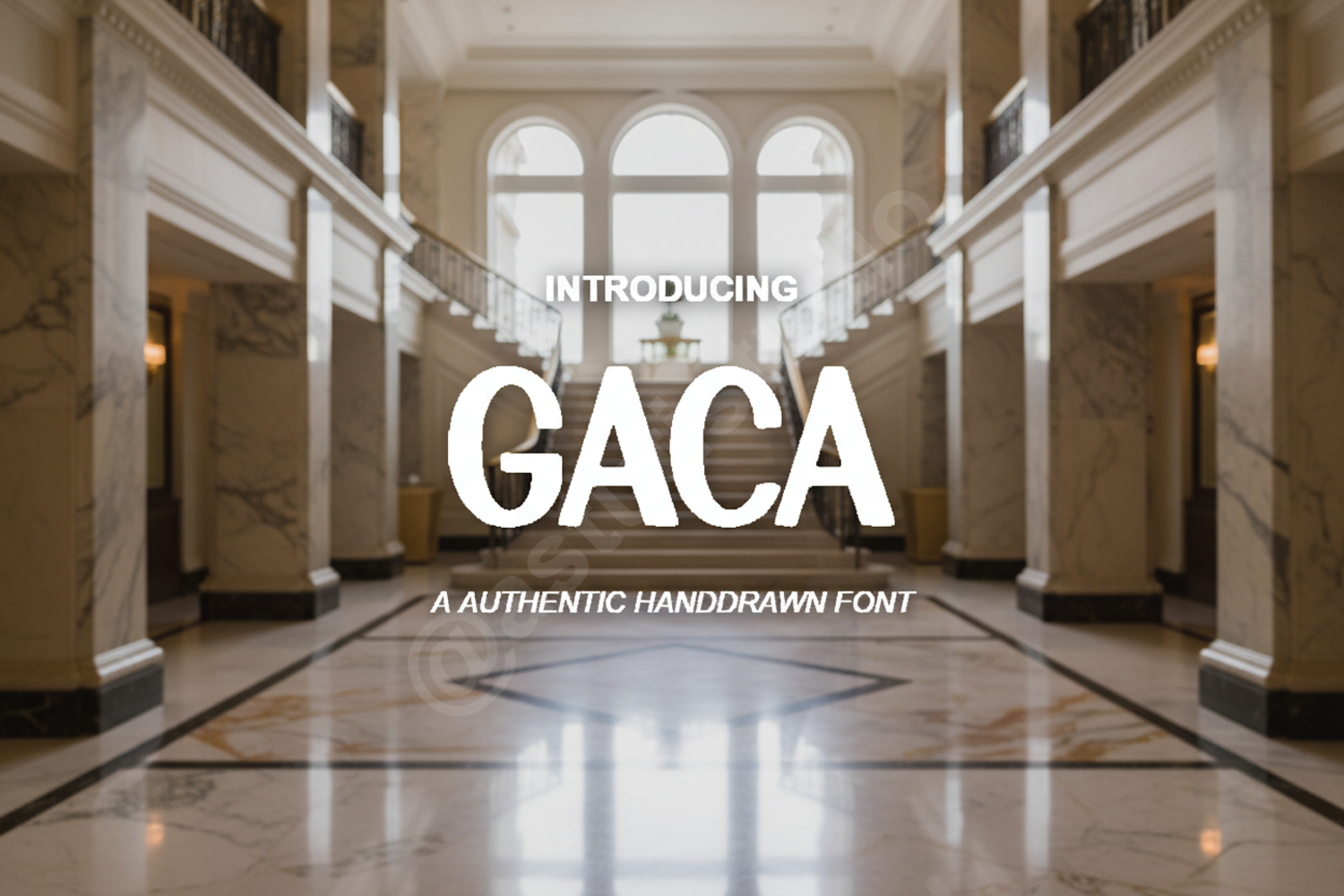
Gaca | Sophisticated Modern Sans Serif Typeface
Gaca
Elevate your creative projects with Gaca, a premium sans serif typeface designed for modern aesthetics and timeless appeal. This font strikes a perfect balance between minimalist precision and professional versatility, ensuring your designs stand out with clarity and elegance.
- Full set of uppercase and lowercase letters
- Multilingual support for global accessibility
- Branding and Identity: Create a strong visual foundation for corporate logos and brand guidelines.
- Editorial Design: Perfect for clean magazine layouts, book covers, and high-end brochures.
- Wedding Stationery: Add a touch of contemporary sophistication to invitations and event programs.
- Digital Marketing: Enhance social media graphics and advertising banners with crisp, readable text.
- Web Design: Ideal for headers and user interface elements that require a sleek, modern look.